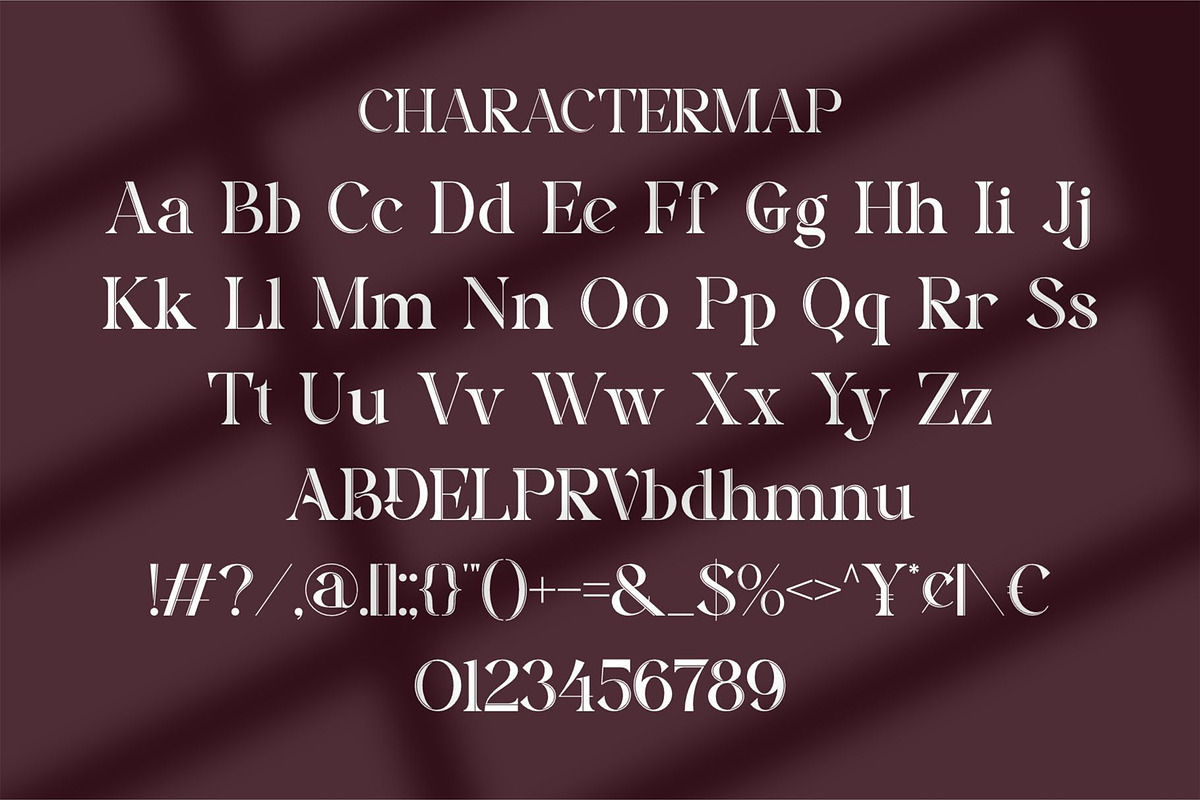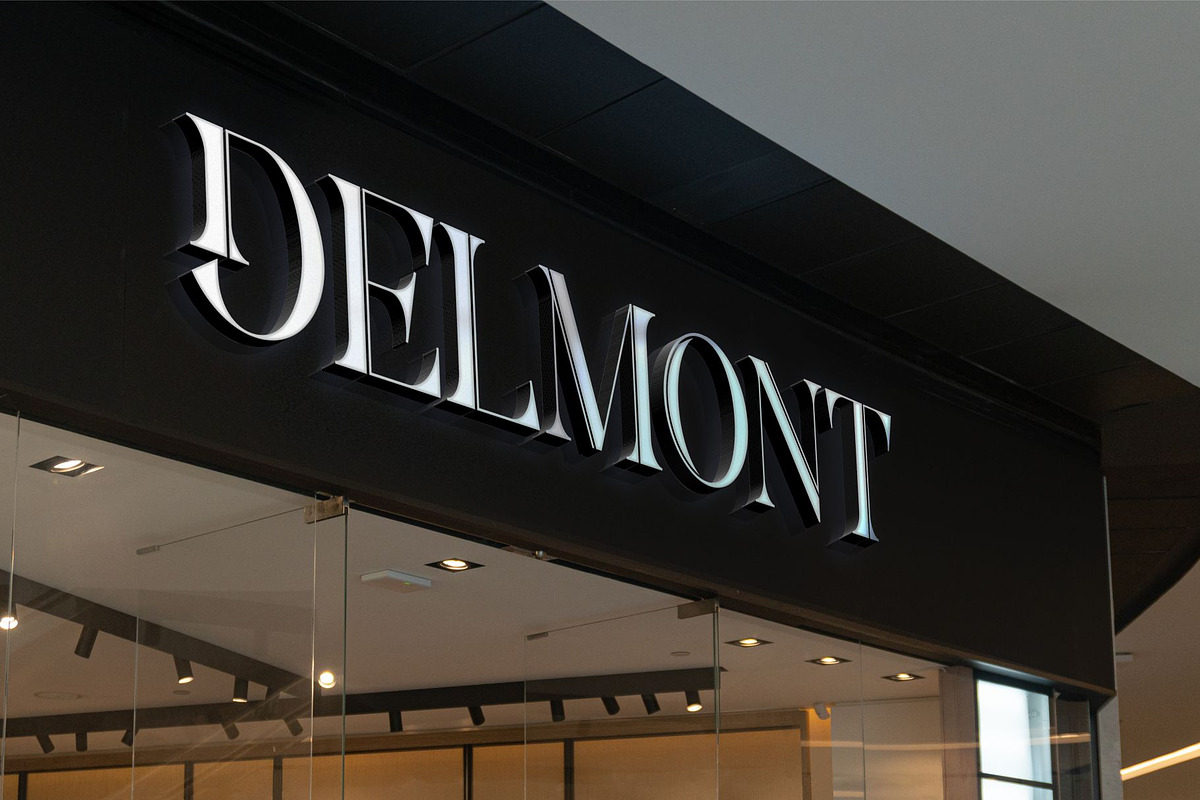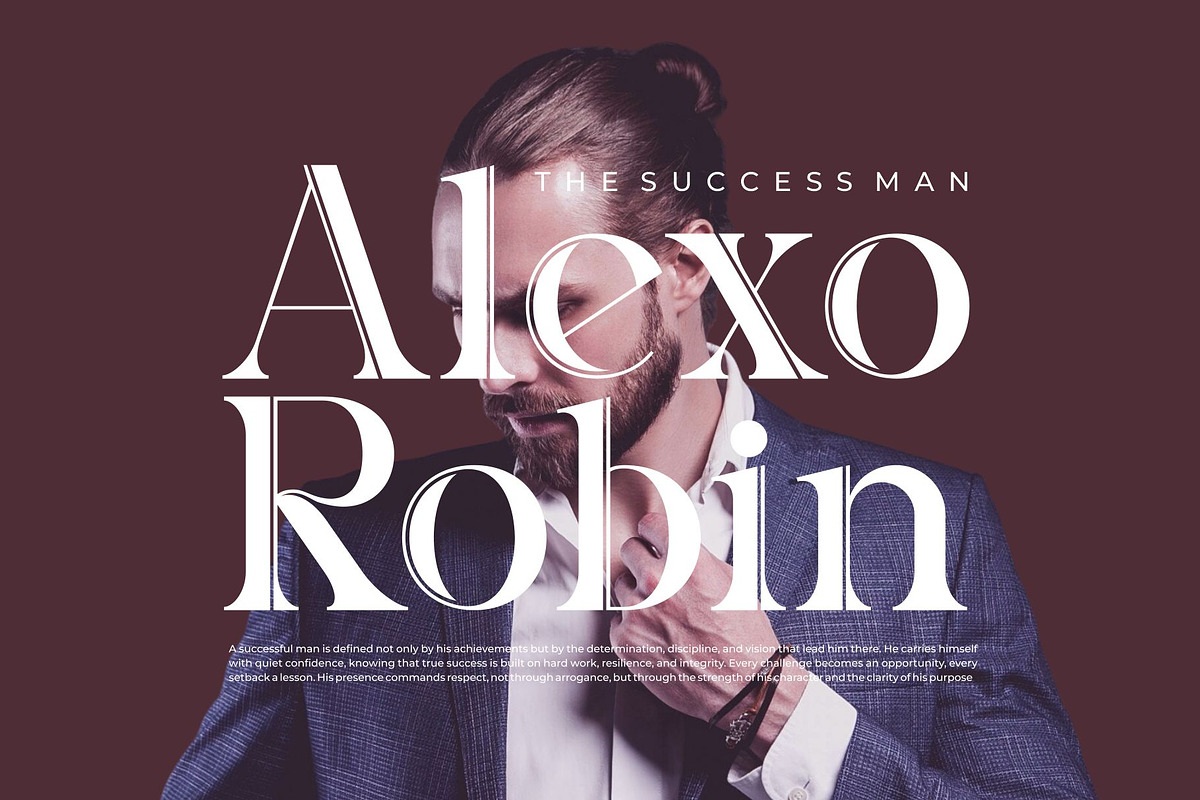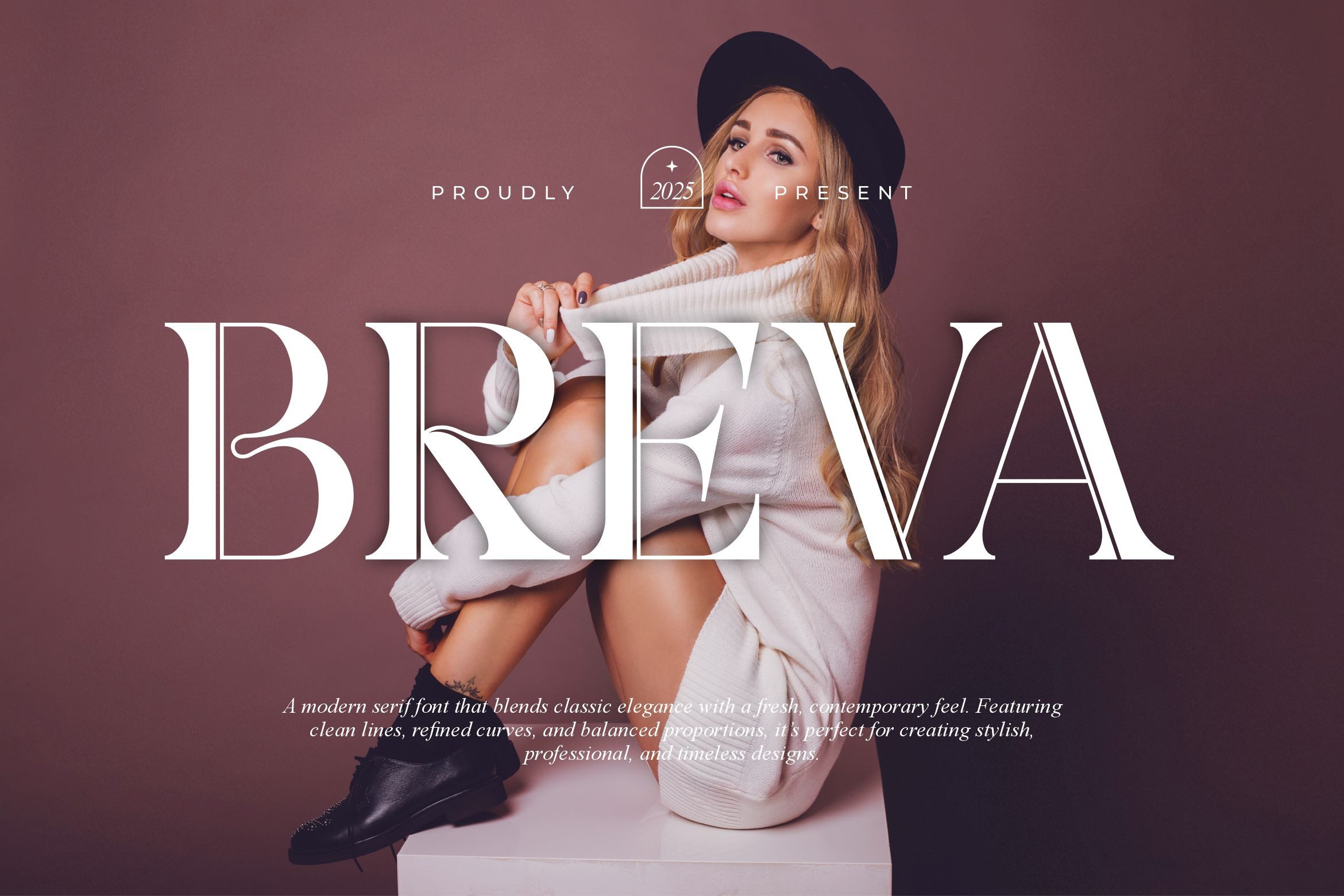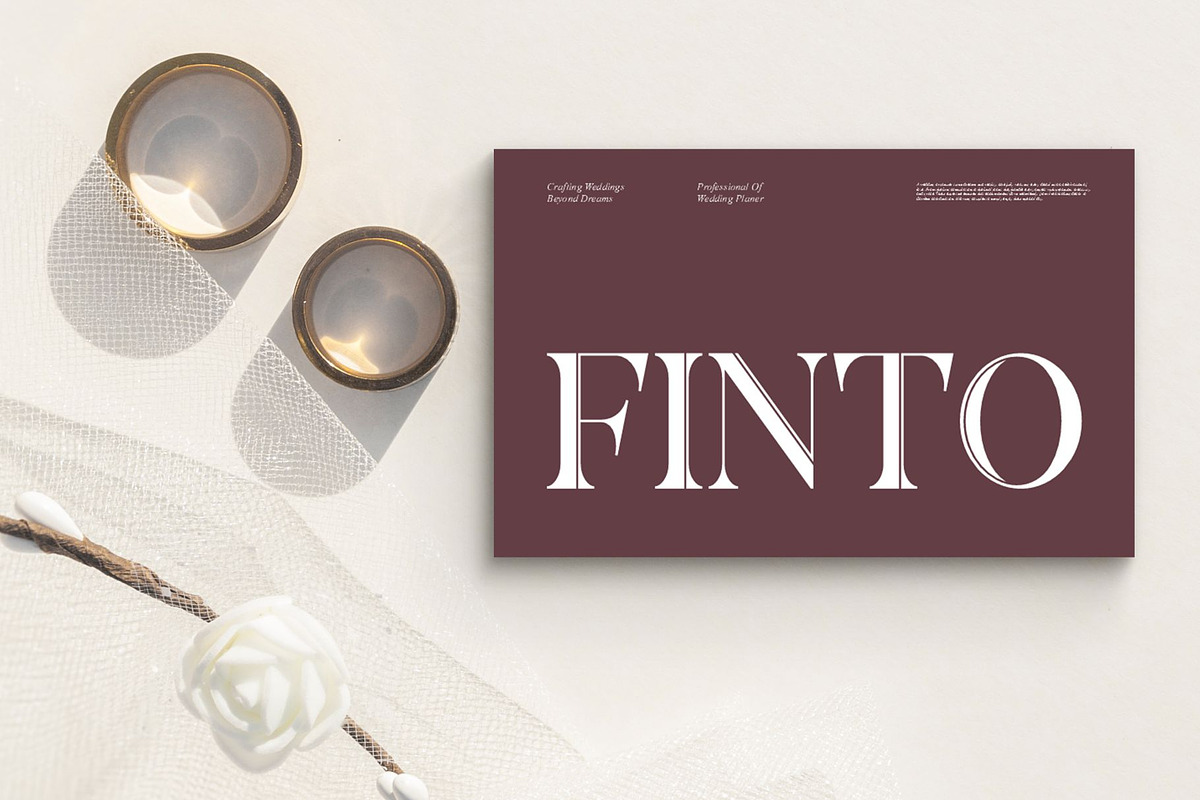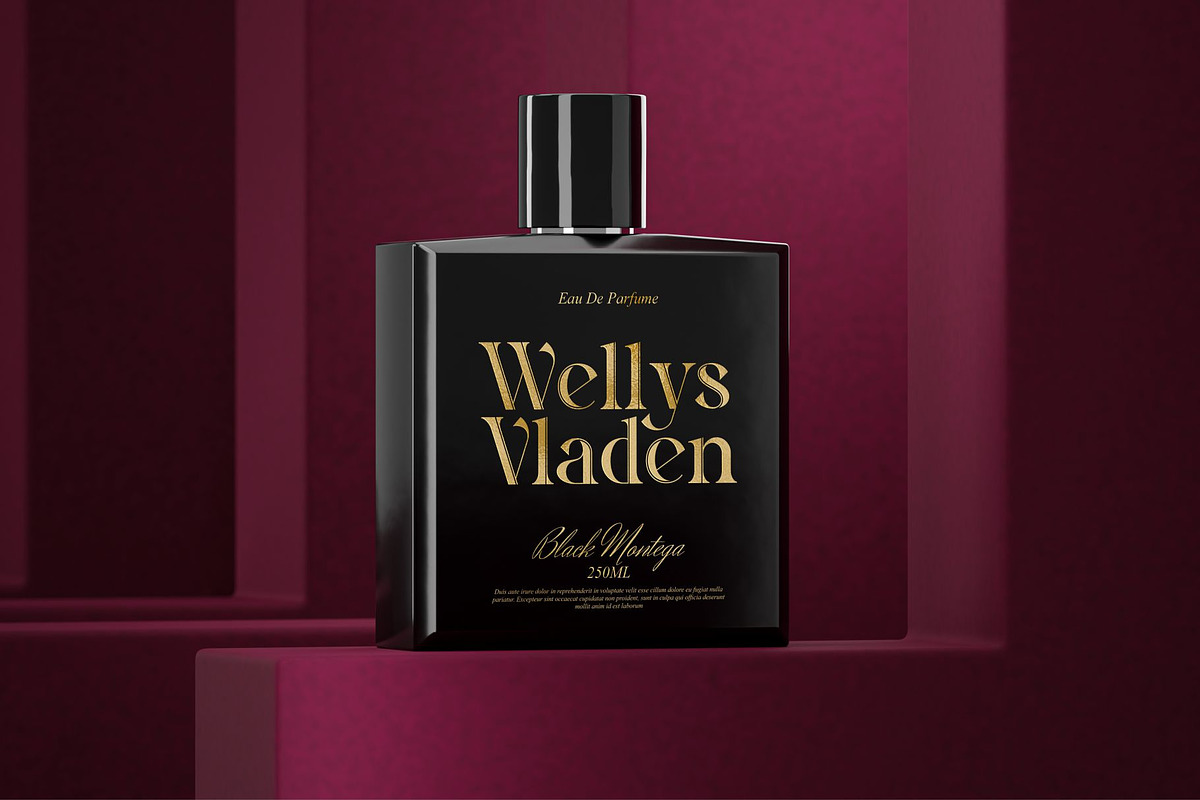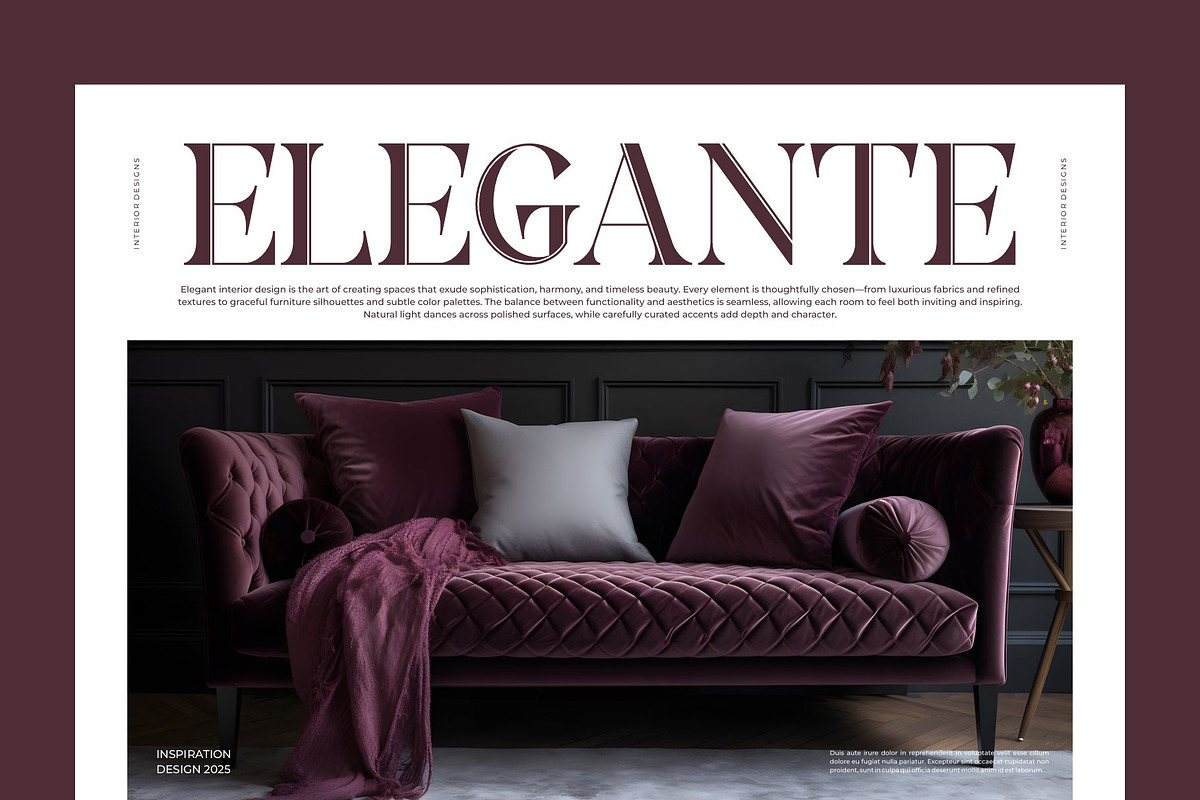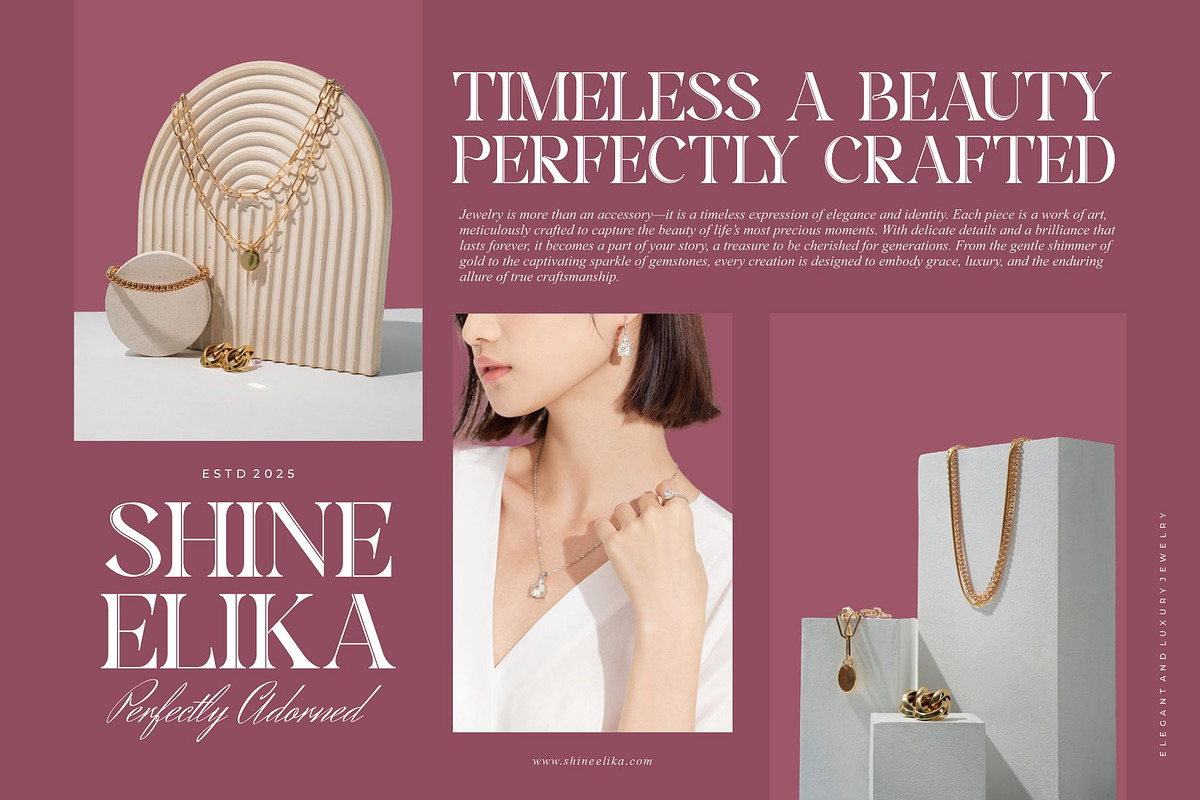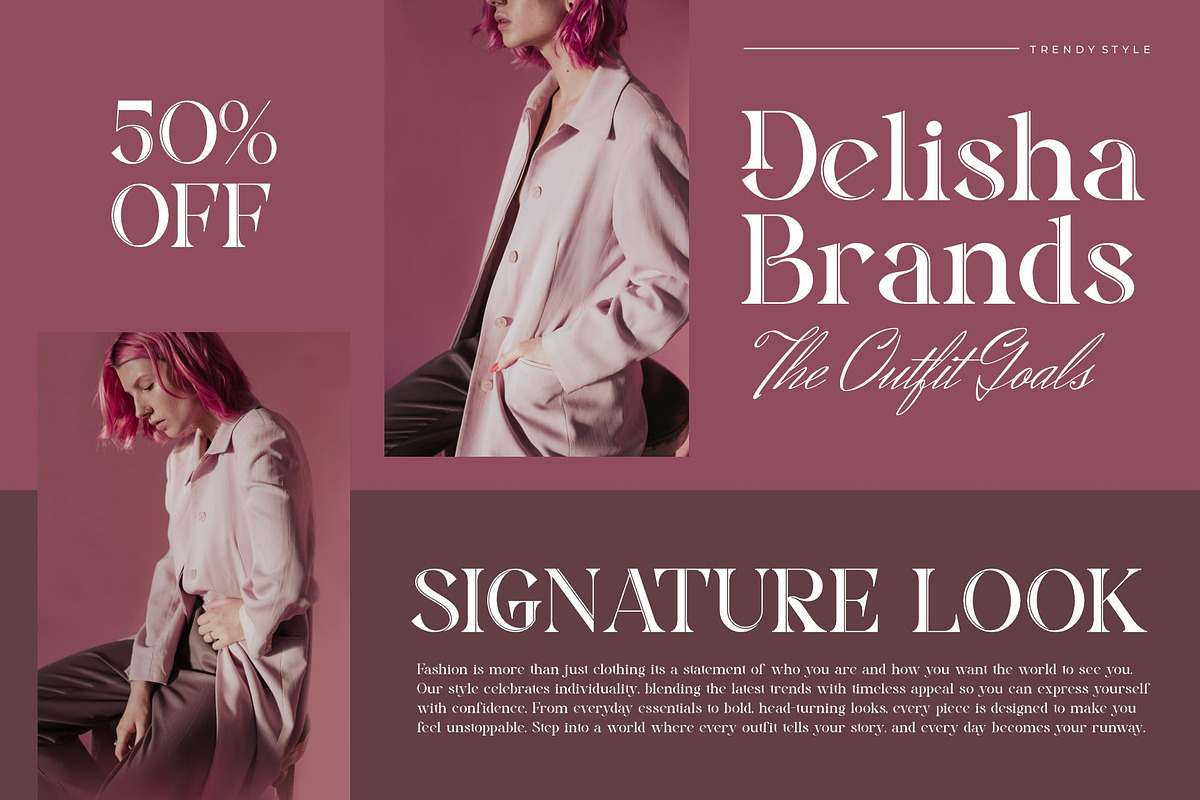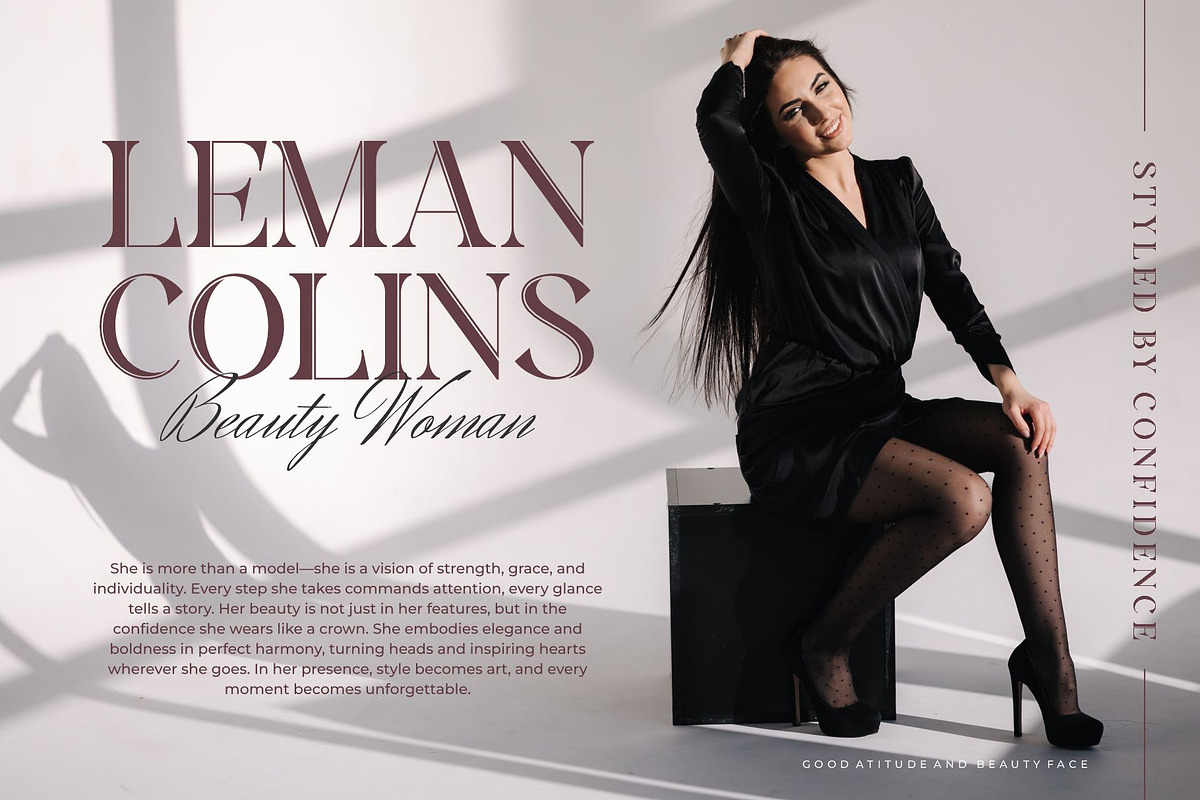
Breva || Modern Line Serif Font
Breva Serif is a modern line font type for all branding and logo designs. This modern Line Serif font has a beautiful character. This font is suitable for invitation card designs, cool logos, movie titles, movie names, business cards, book titles, brand names, and various other designs. Breva Serif is a smooth serif font that exudes sophistication and the moment. Its stylish ligatures make this font a perfect partner for any project.